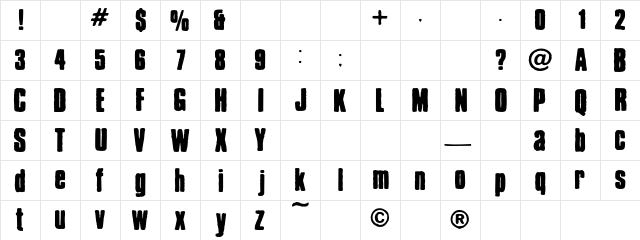
Chrispy Regular
Design Context for Chrispy Typeface
Chrispy offers clean, dependable letterforms without strong stylistic allegiance, making it a practical choice for designers who need flexibility.
Pro Tip: Pair Chrispy with a font of contrasting weight or personality to build a more expressive typographic hierarchy.